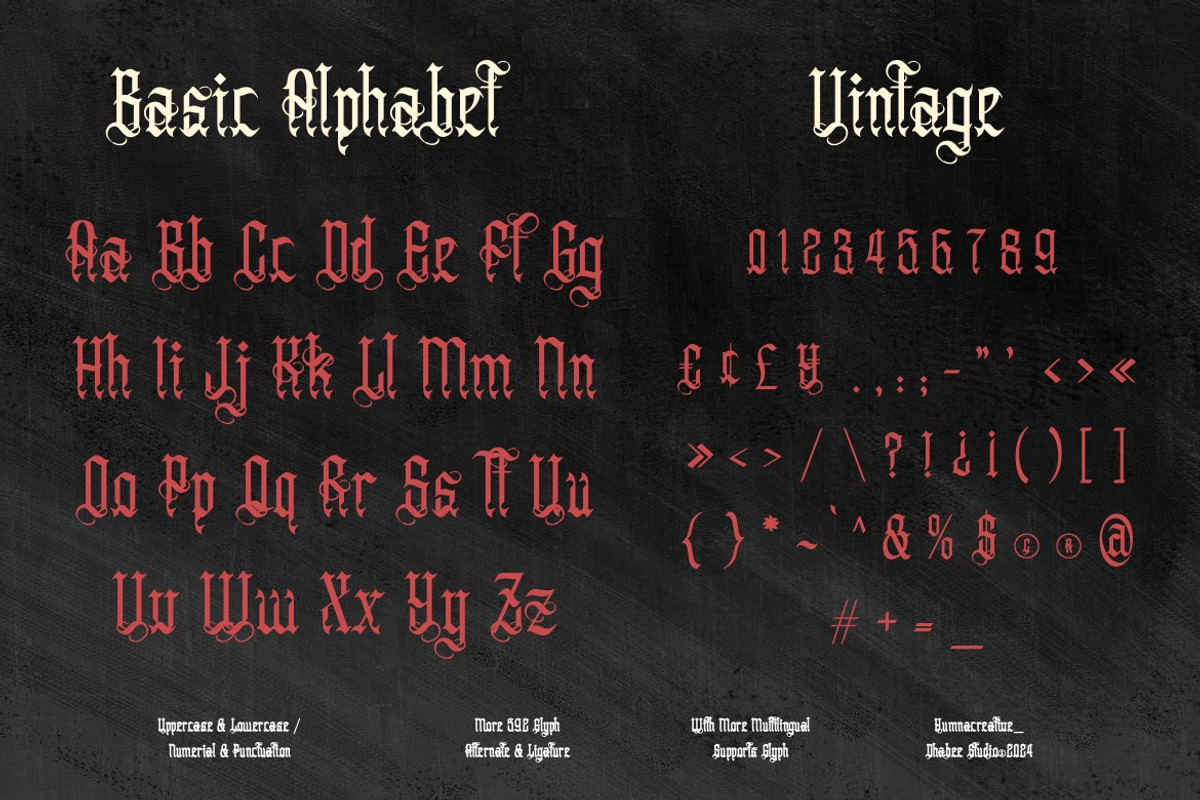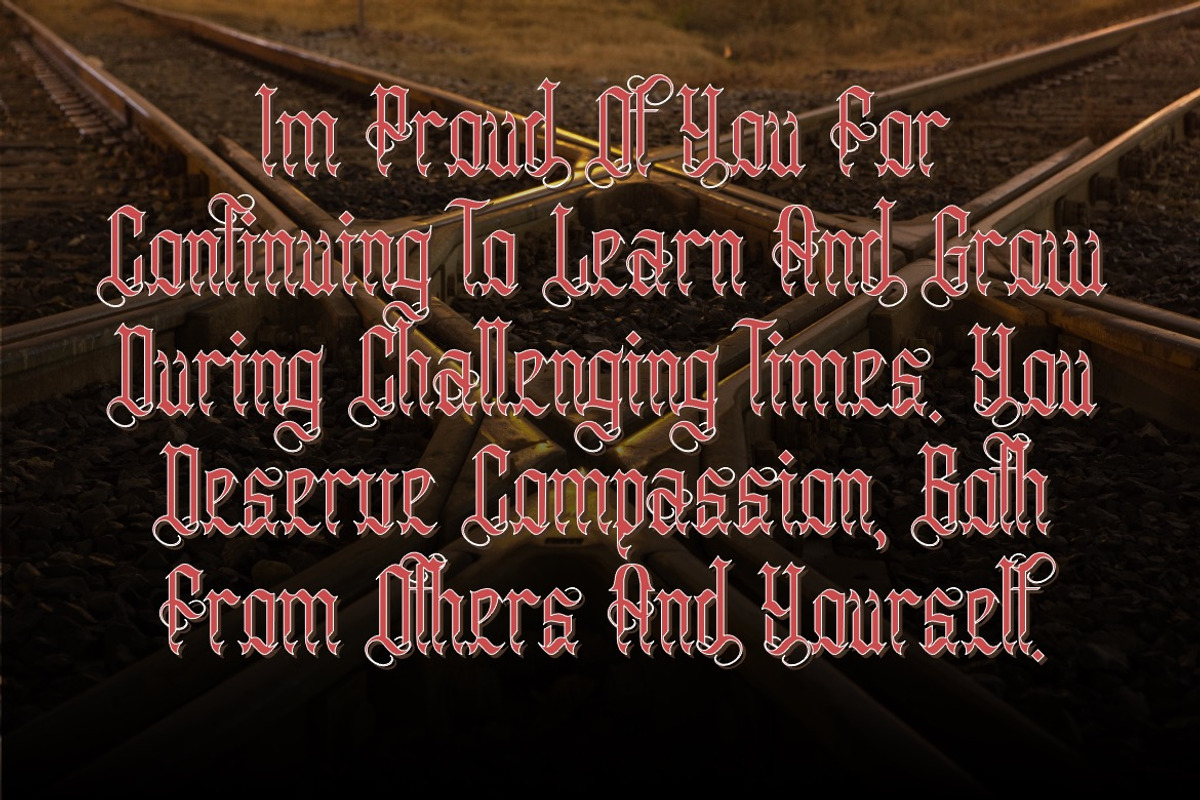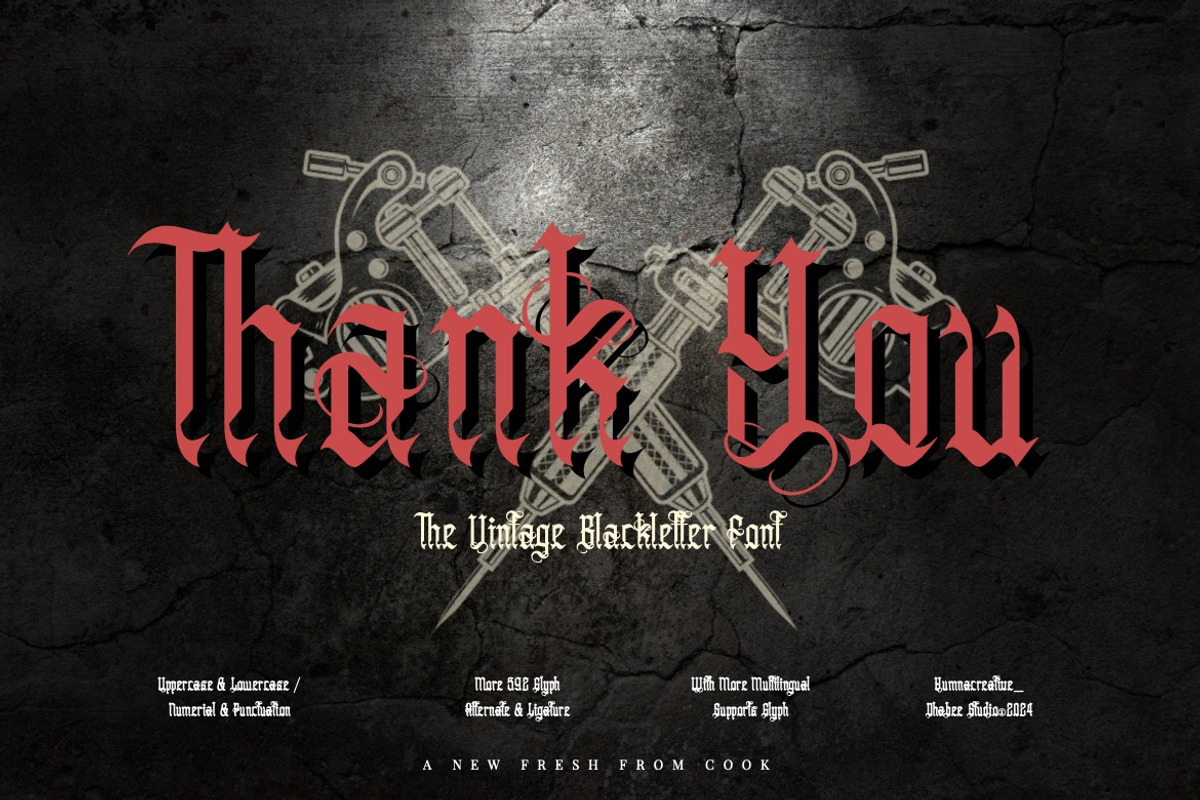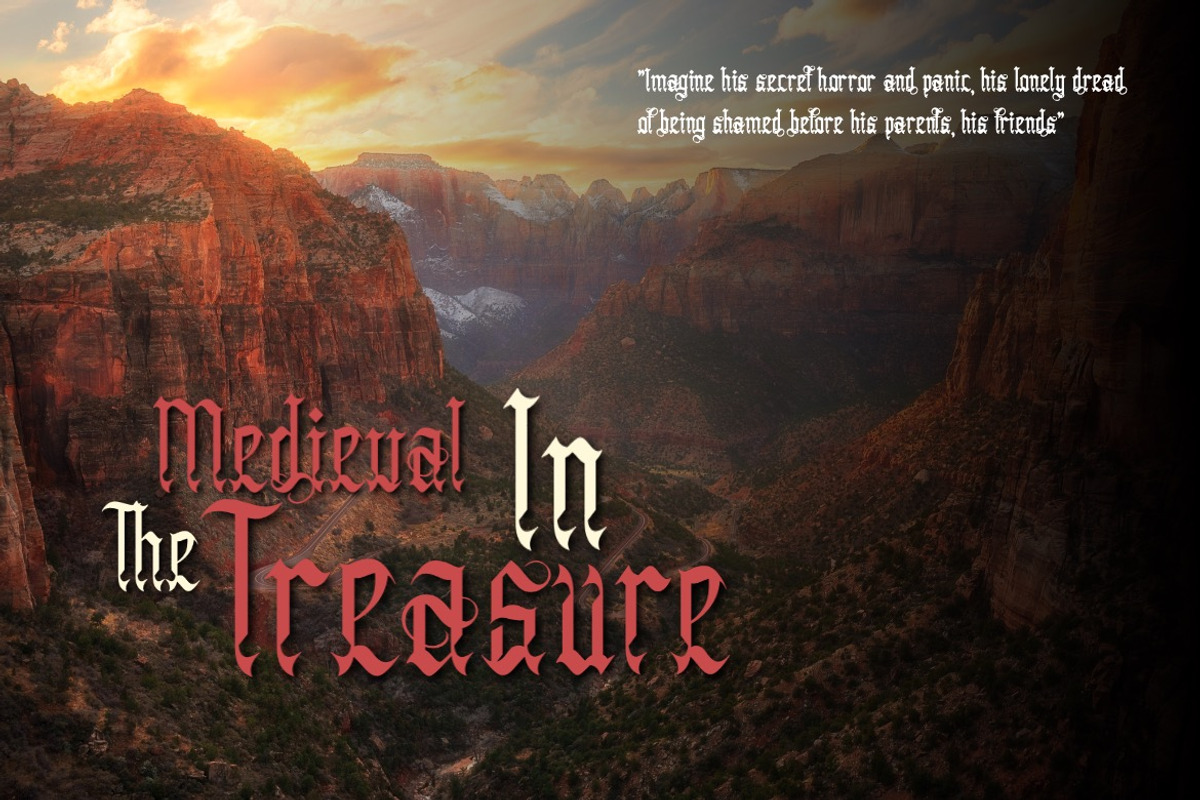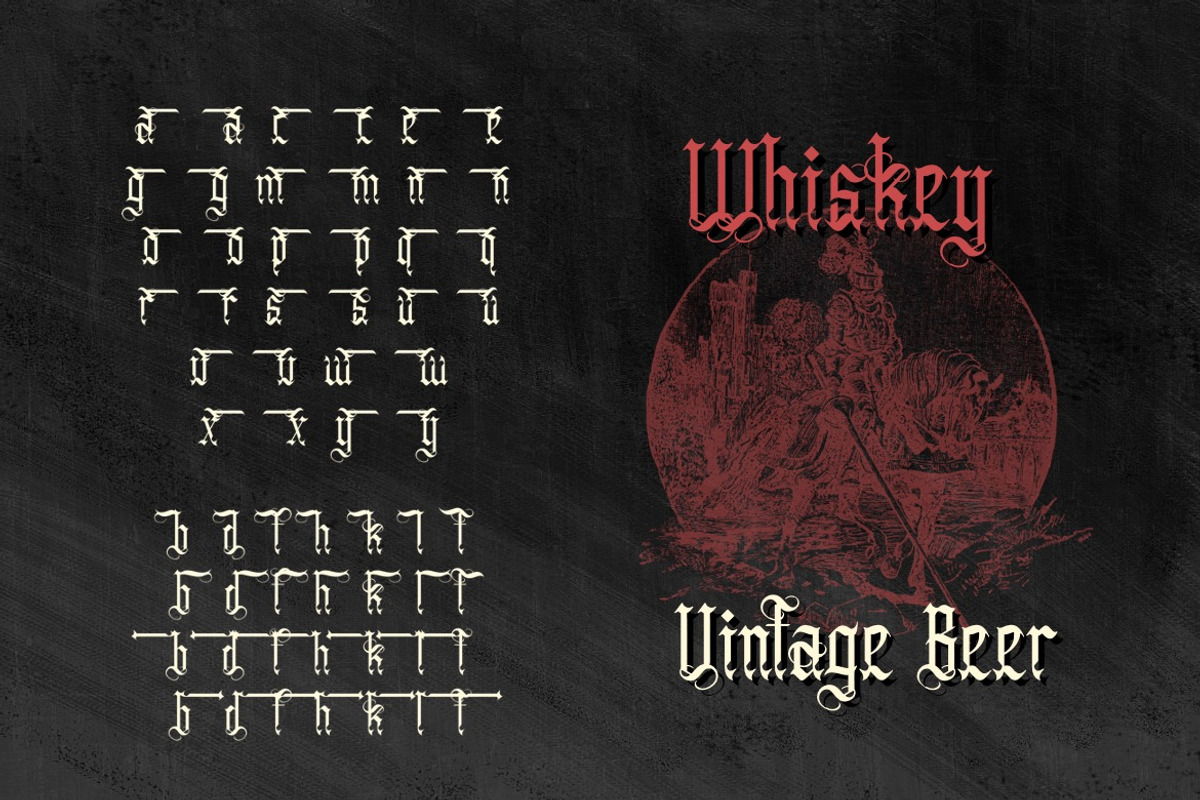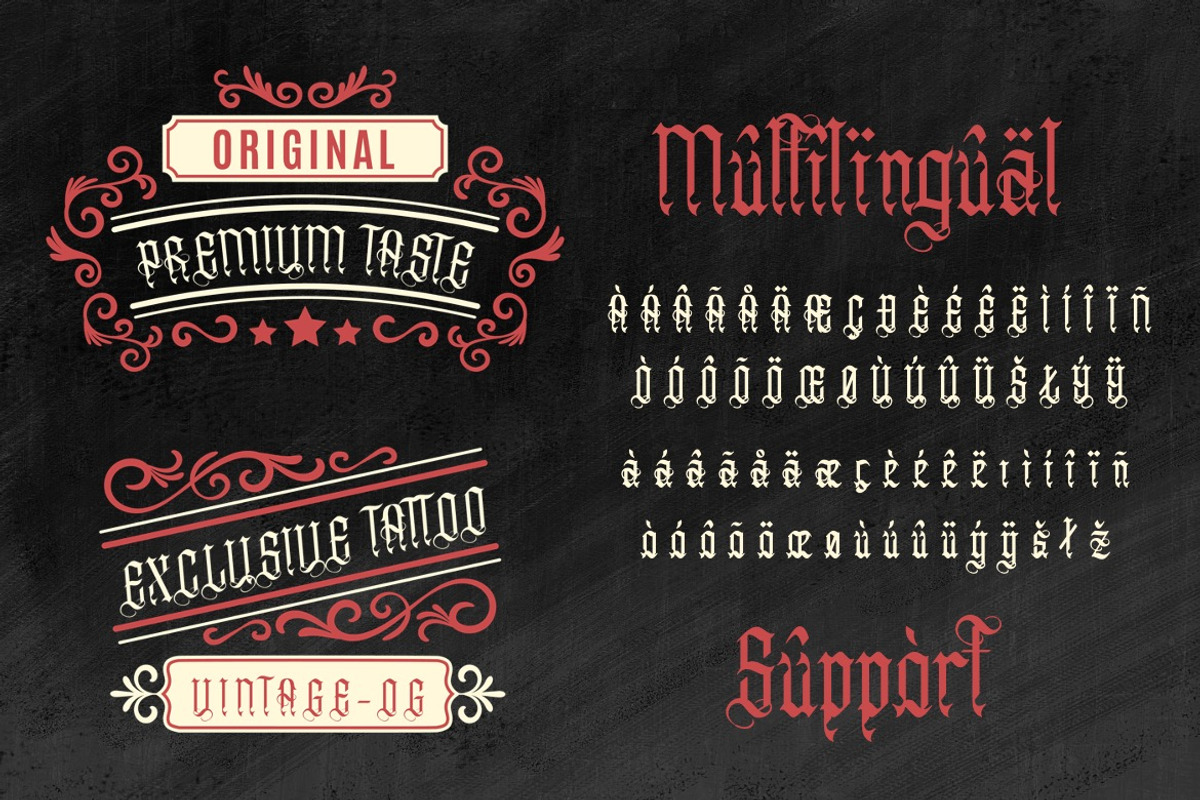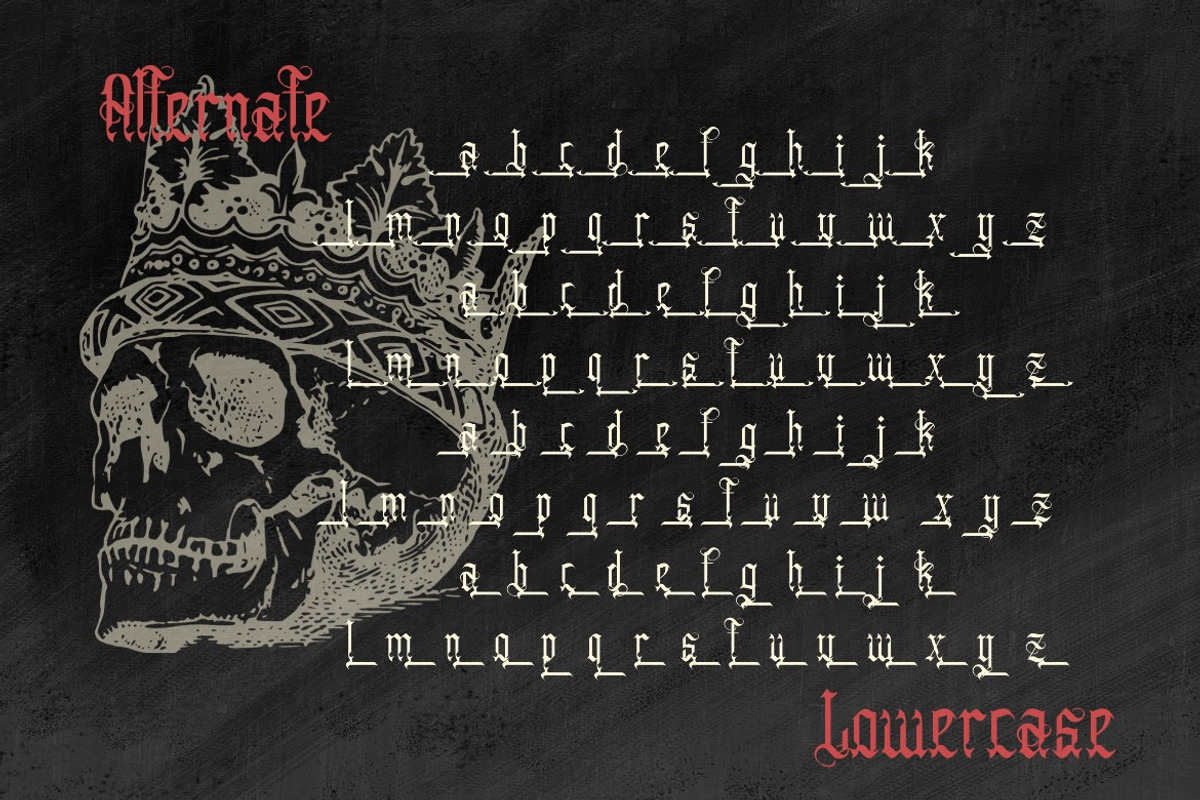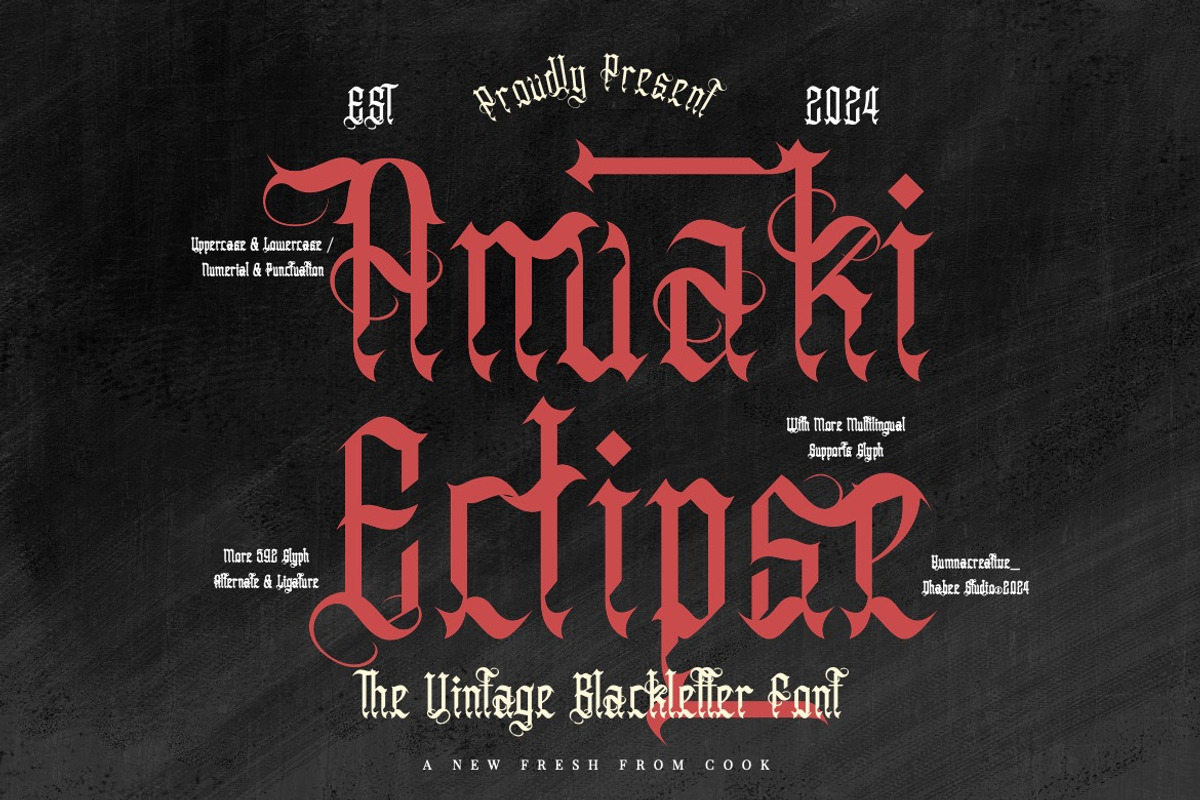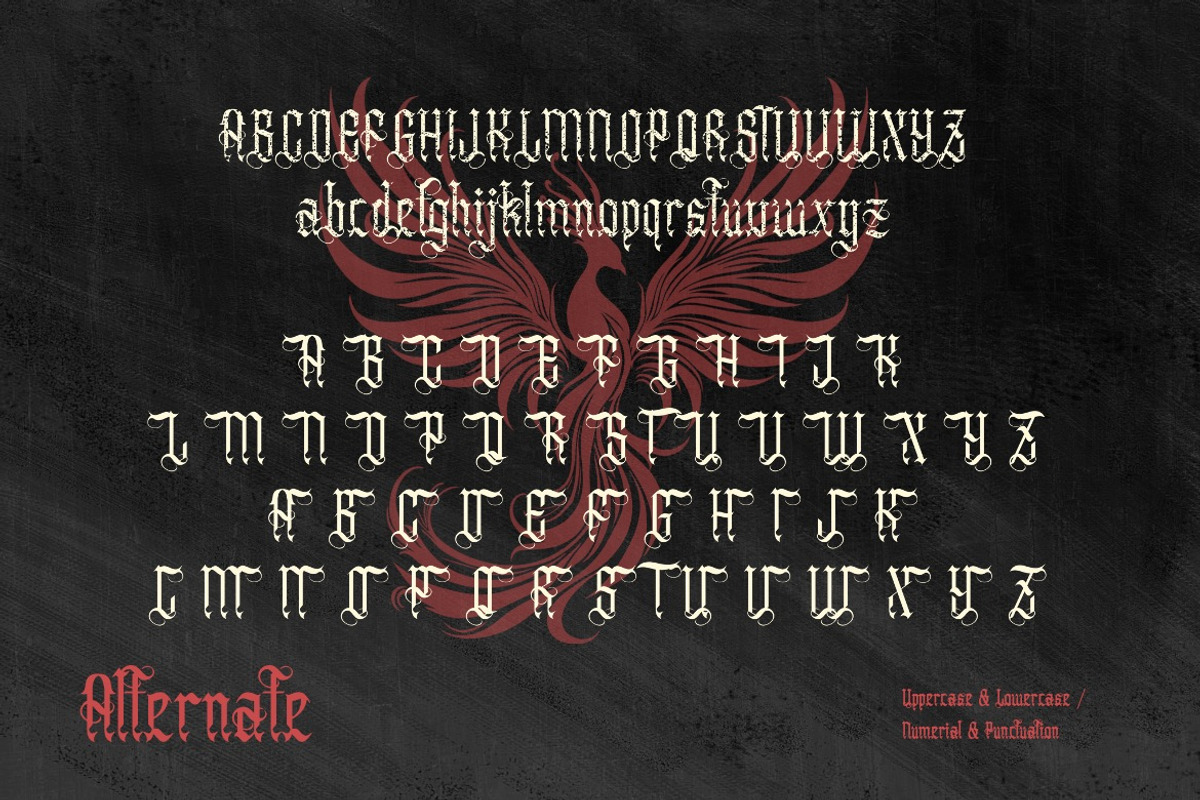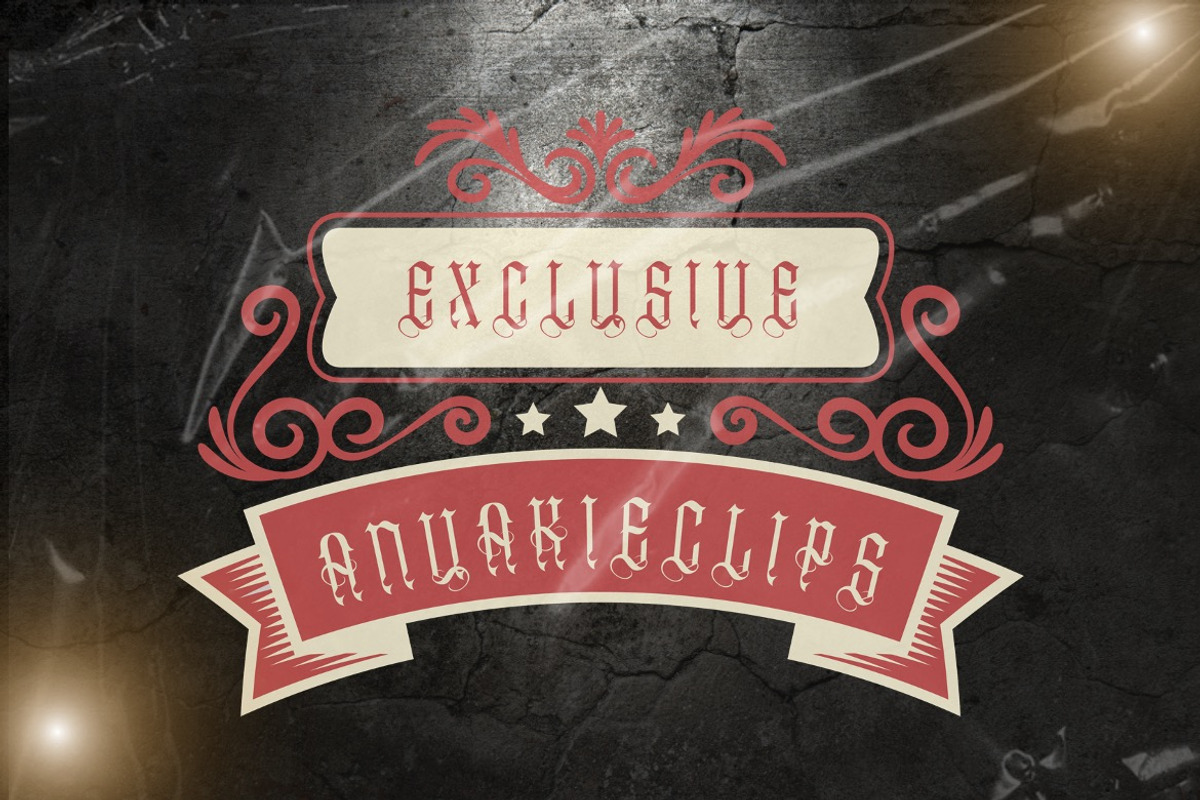
Anuaki Eclipse - Vintage Blackletter
Introducing Anuaki Eclipse - Vintage Blackletter
Anuaki Eclipse - Vintage Blackletter Font is a bold blackletter fraktur display font that merges traditional Gothic aesthetics with modern impact. Its intricate letterforms feature sharp angles, dramatic strokes, and striking contrasts, embodying strength, authority, and historical charm. The bold weight enhances its commanding presence, making it ideal for designs that demand attention and sophistication.
• Alternate & Ligature